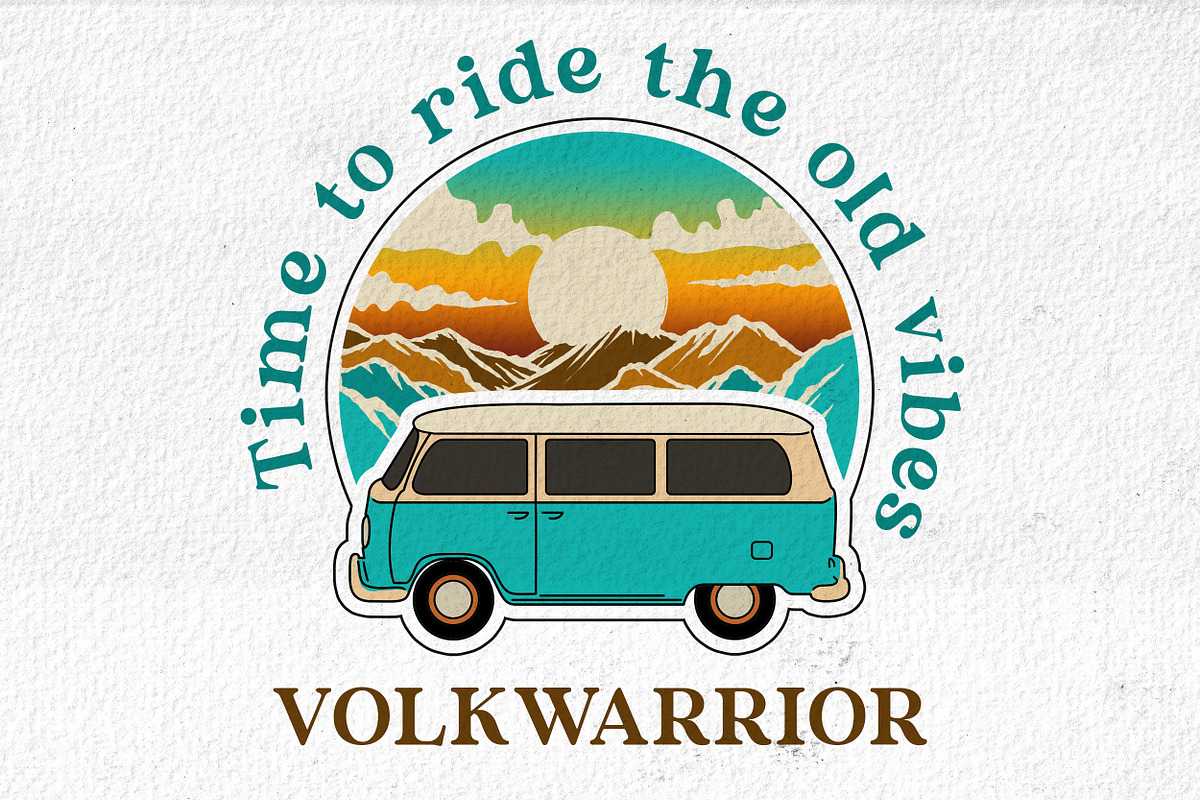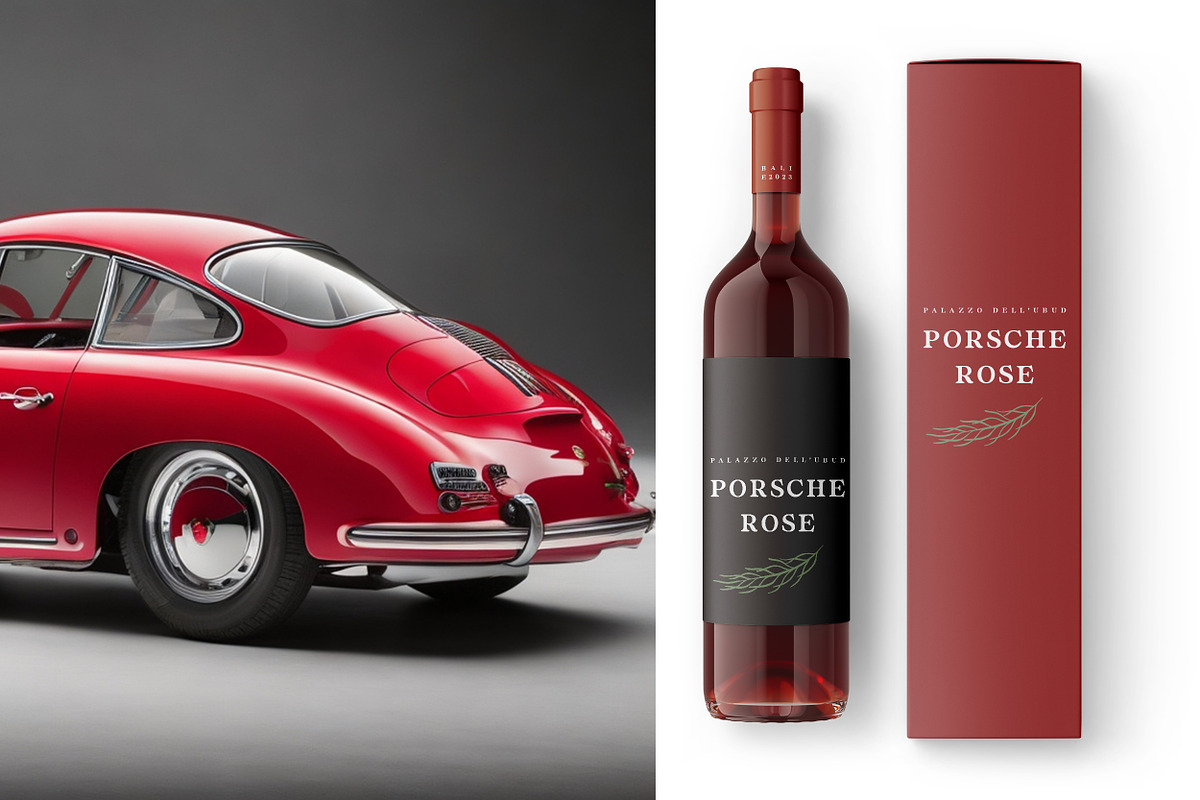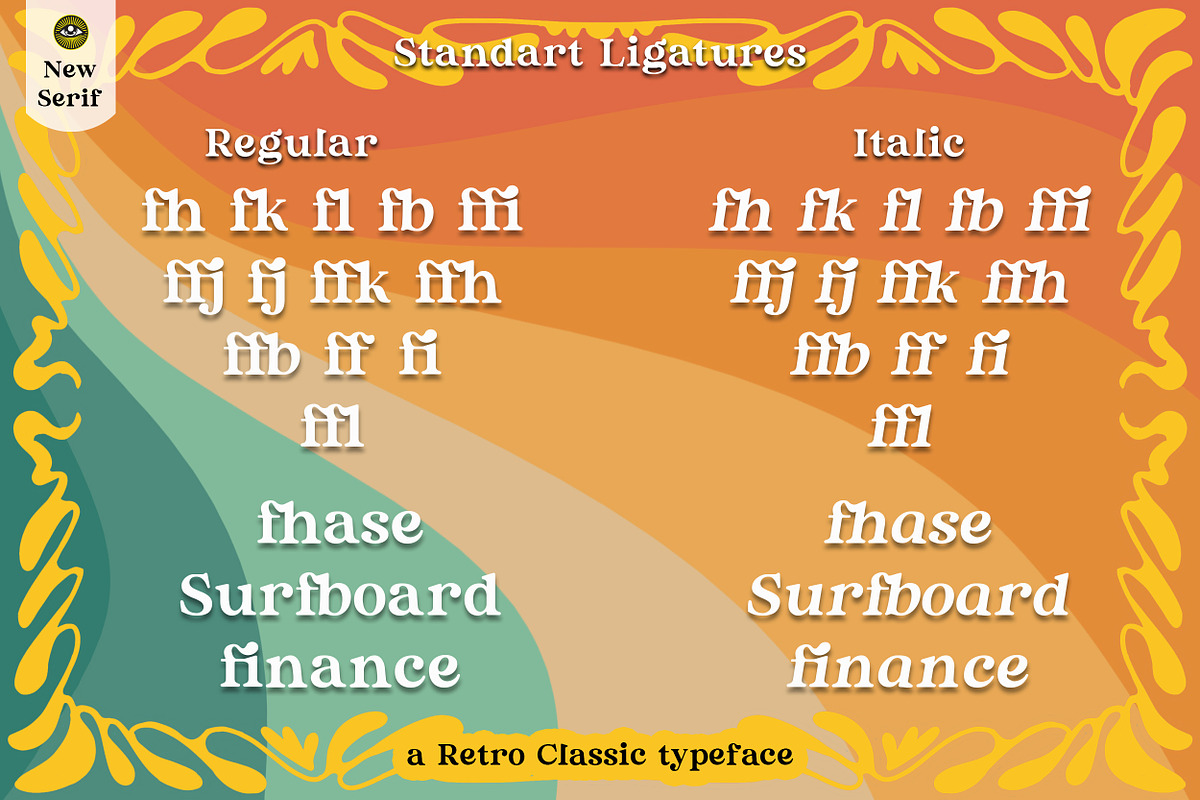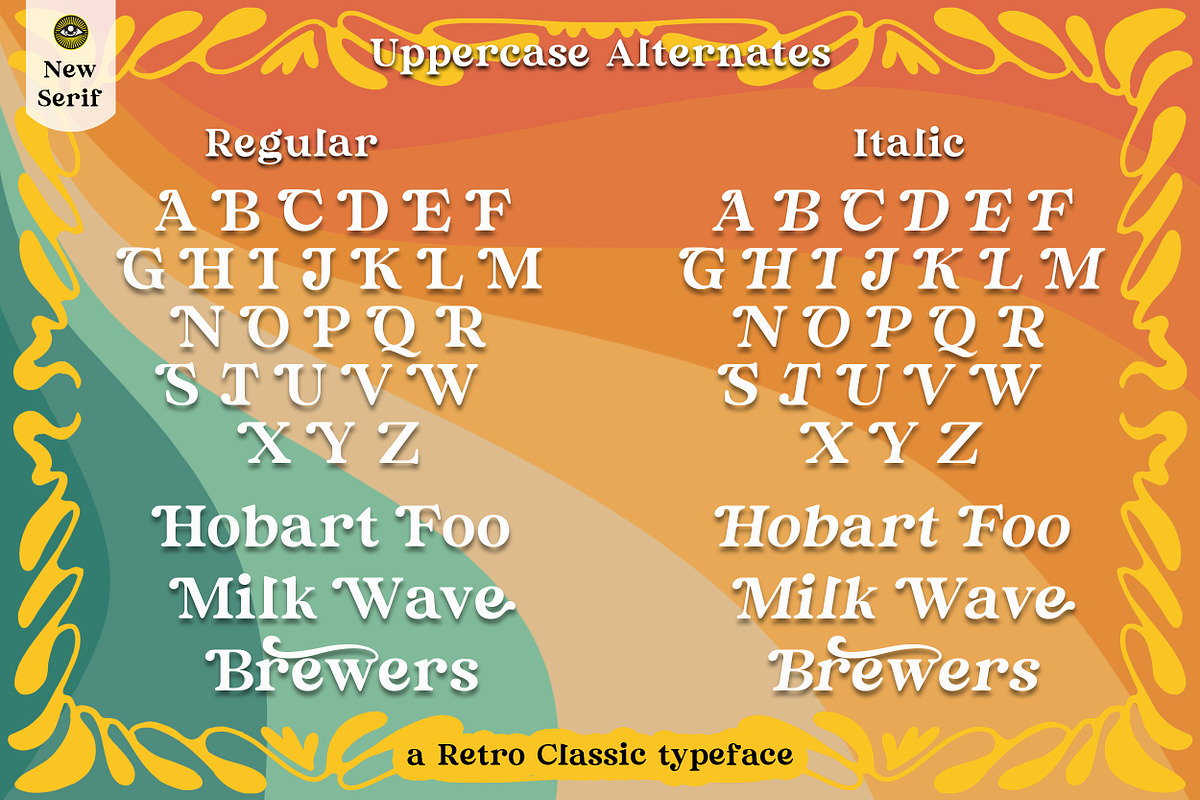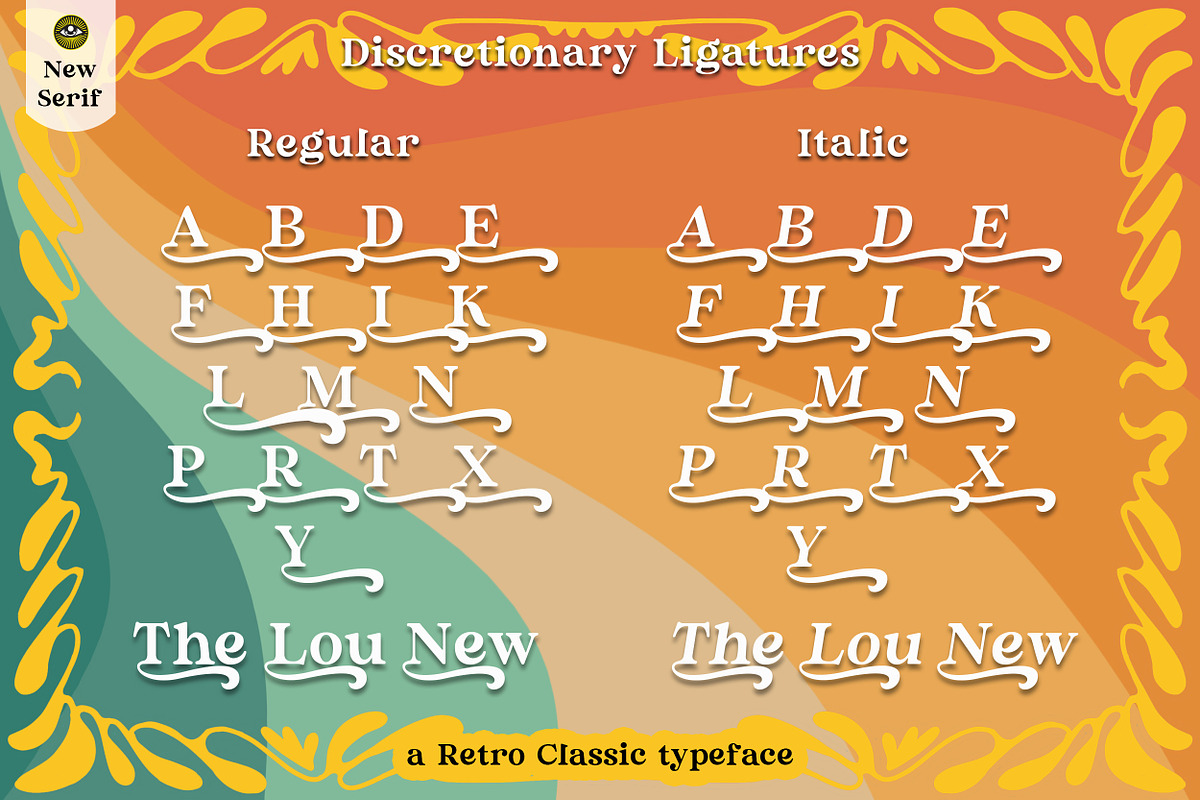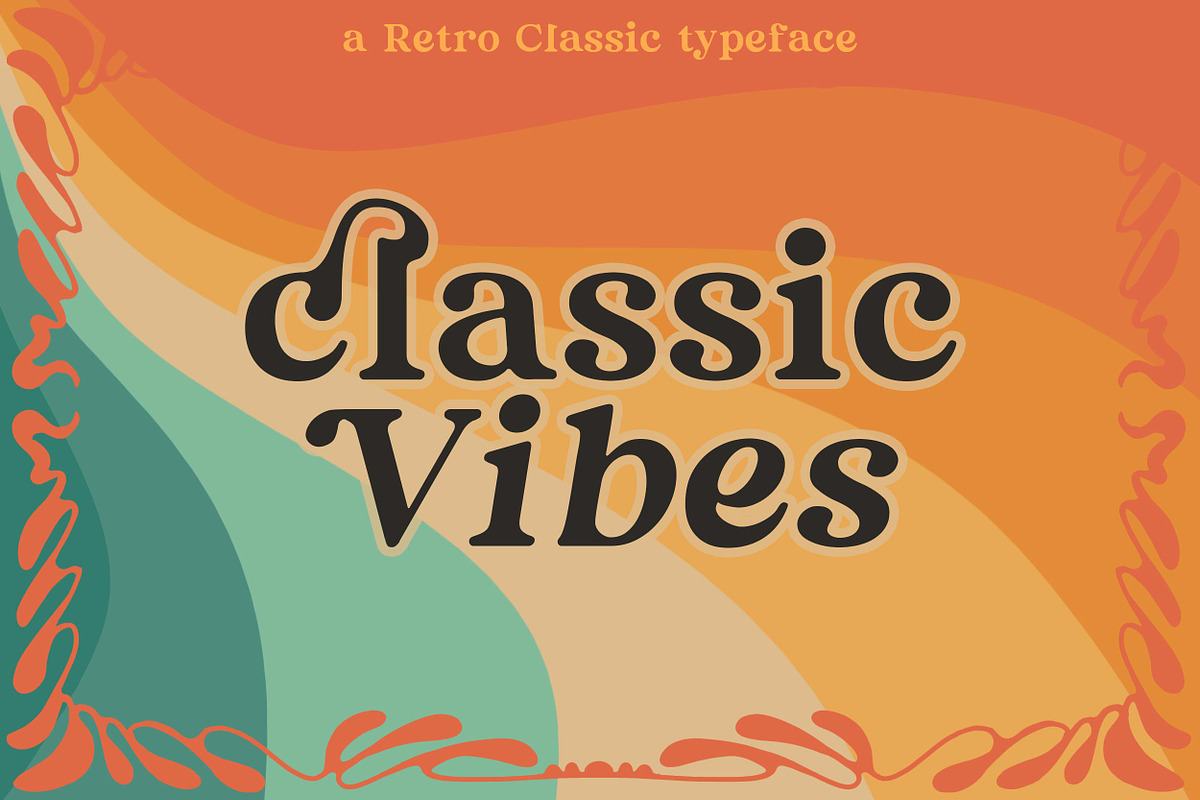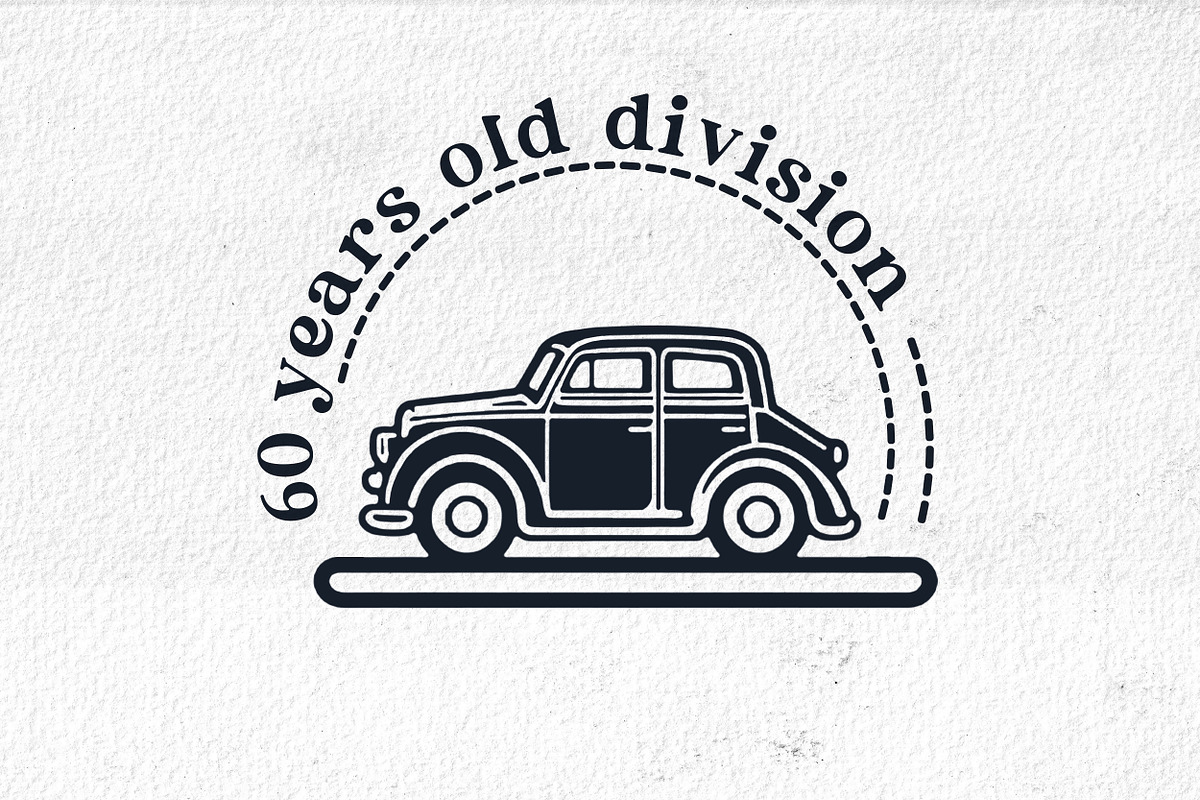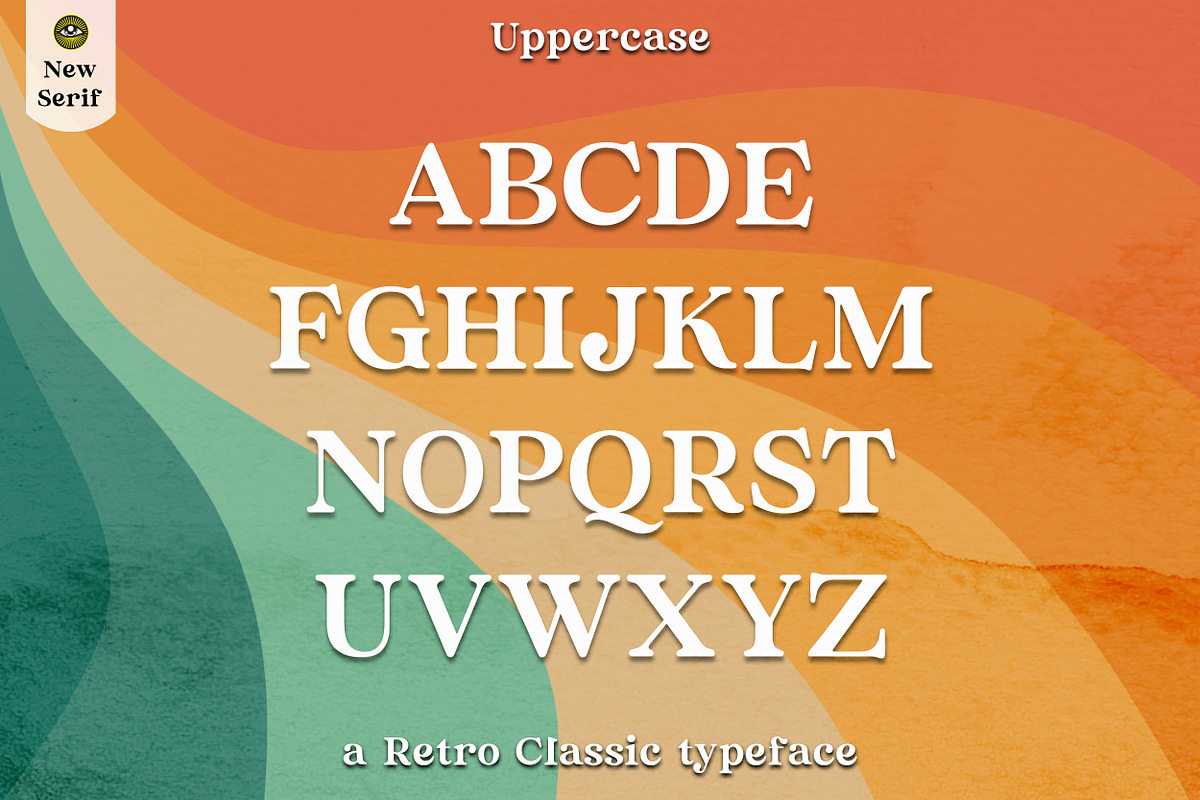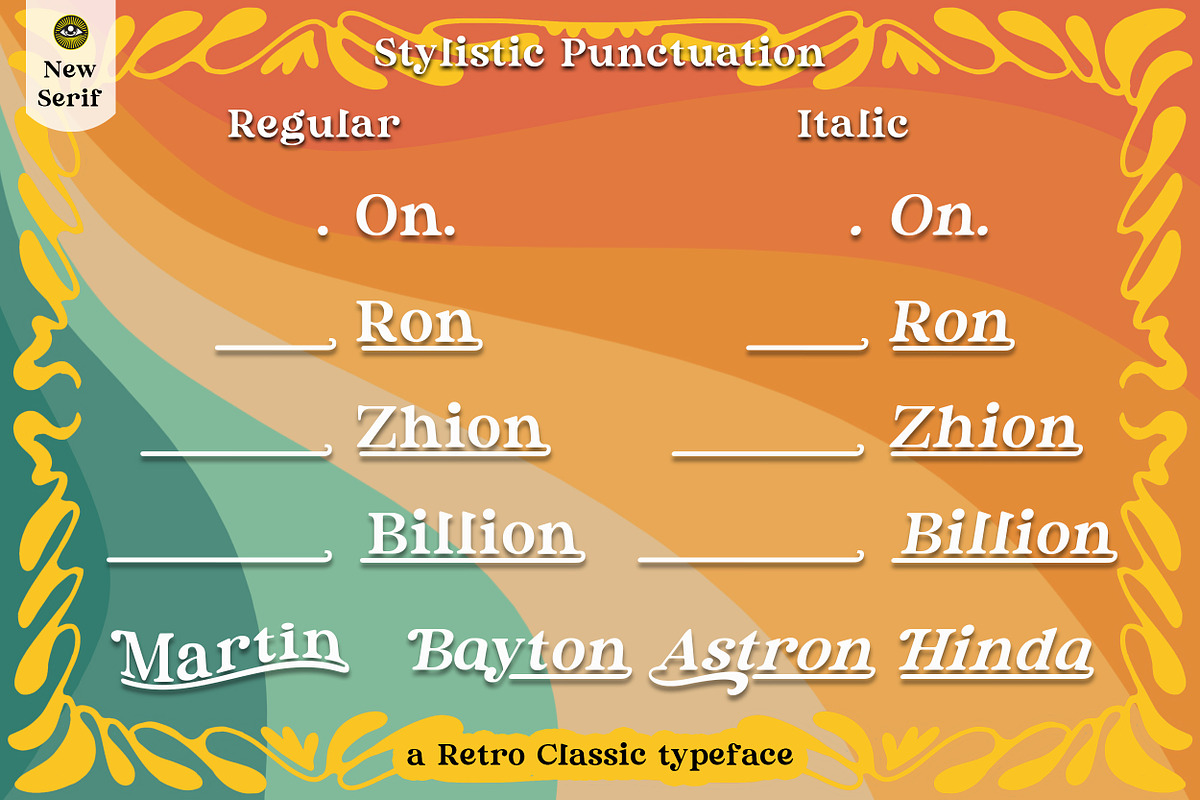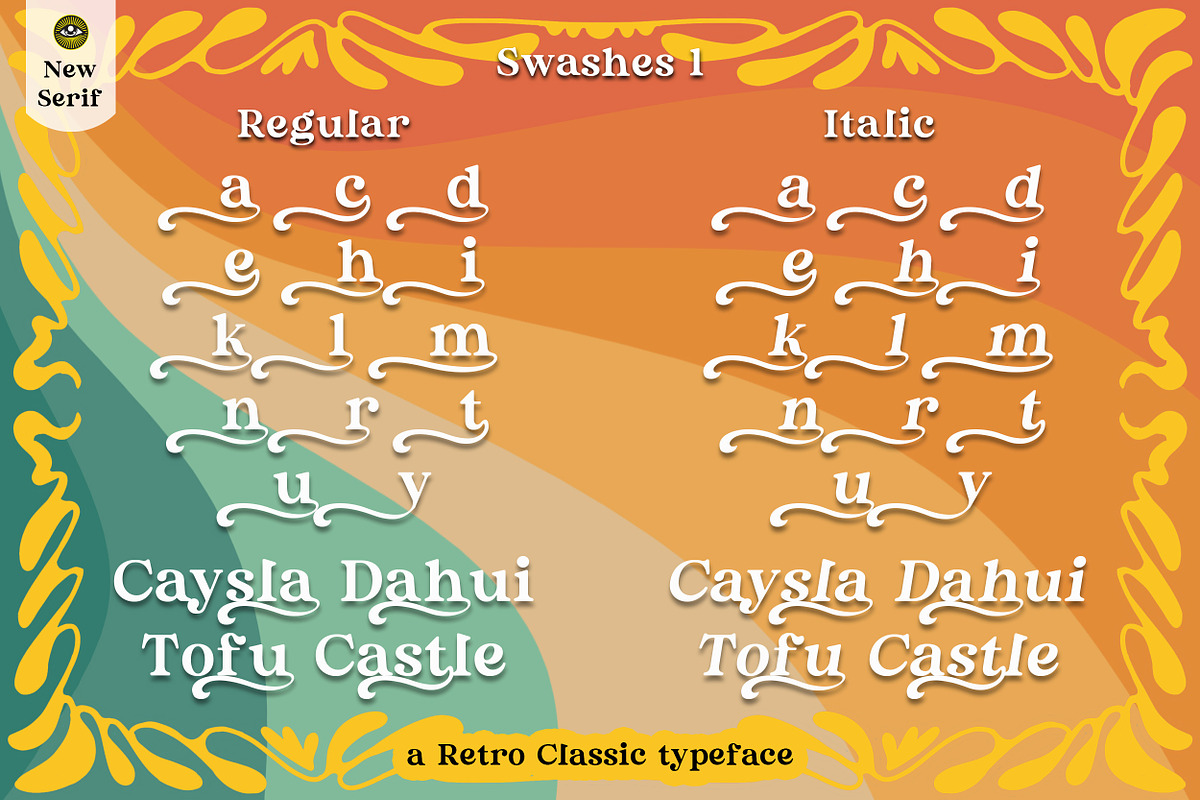
Classic Vibes
CLASSIC VIBES is a stylish font that has a classic and retro look. Accompanied by alternatives and ligatures, it helps make logos, quotes, posts, and blog posts interesting to look at. branding projects in marketing, magazine imagery that has a classic luxury vibe, wedding invitations, t-shirt designs, and many more.